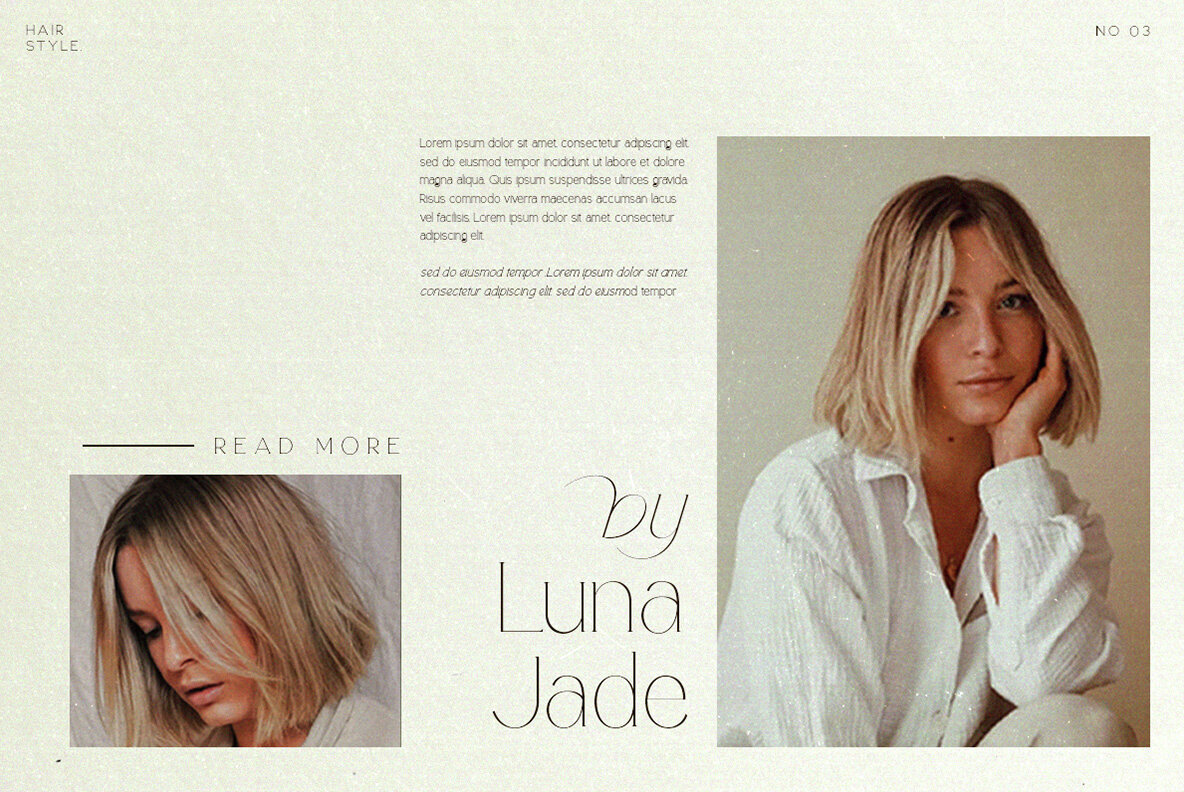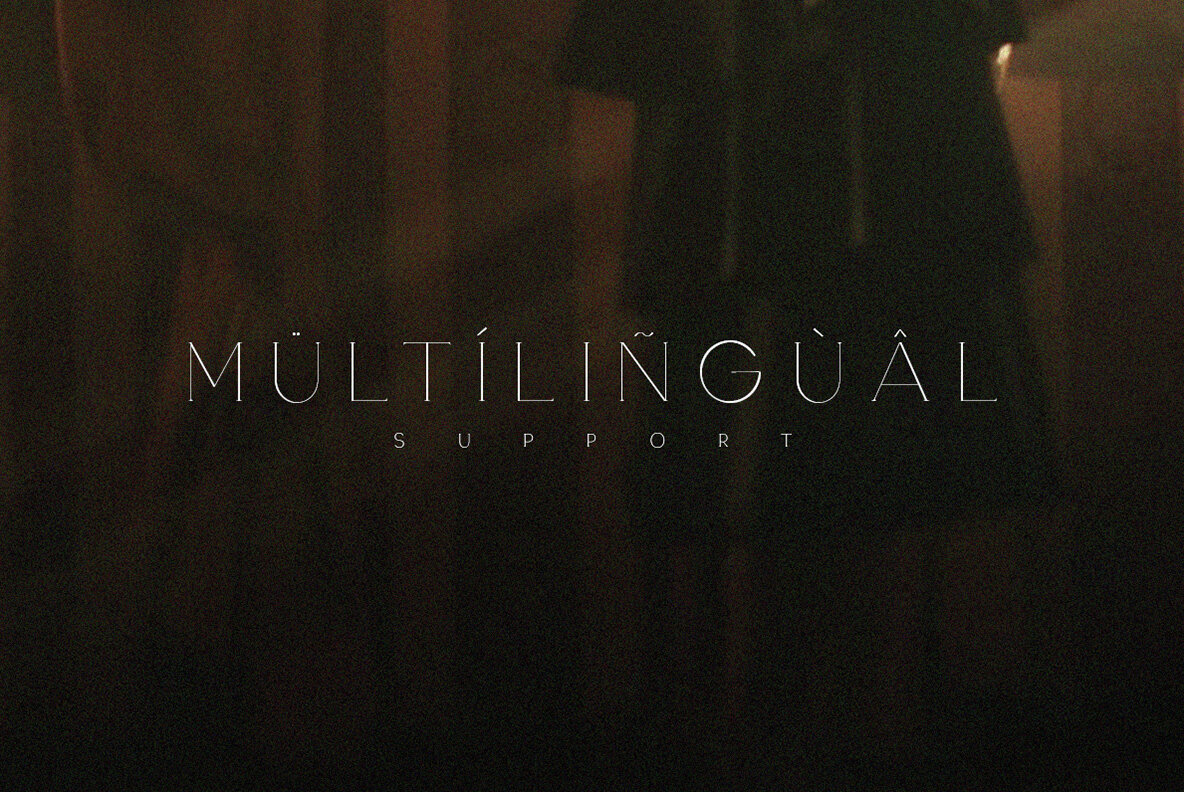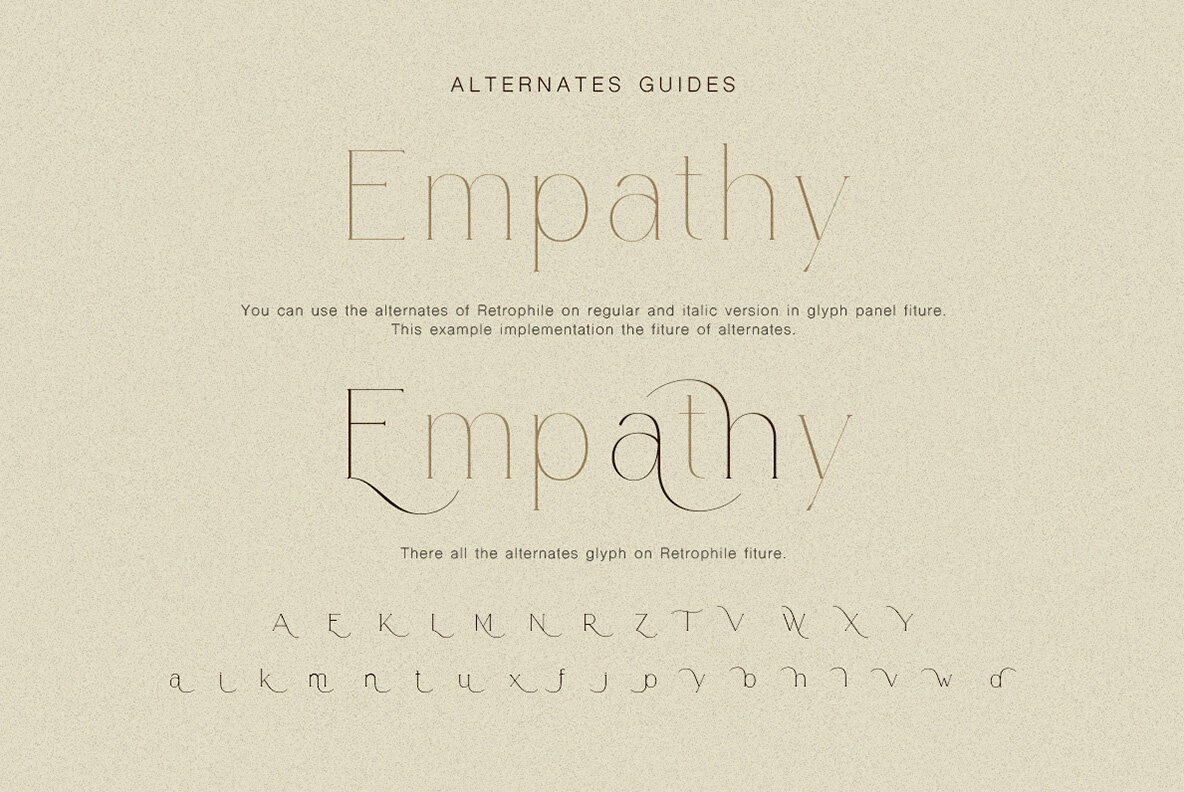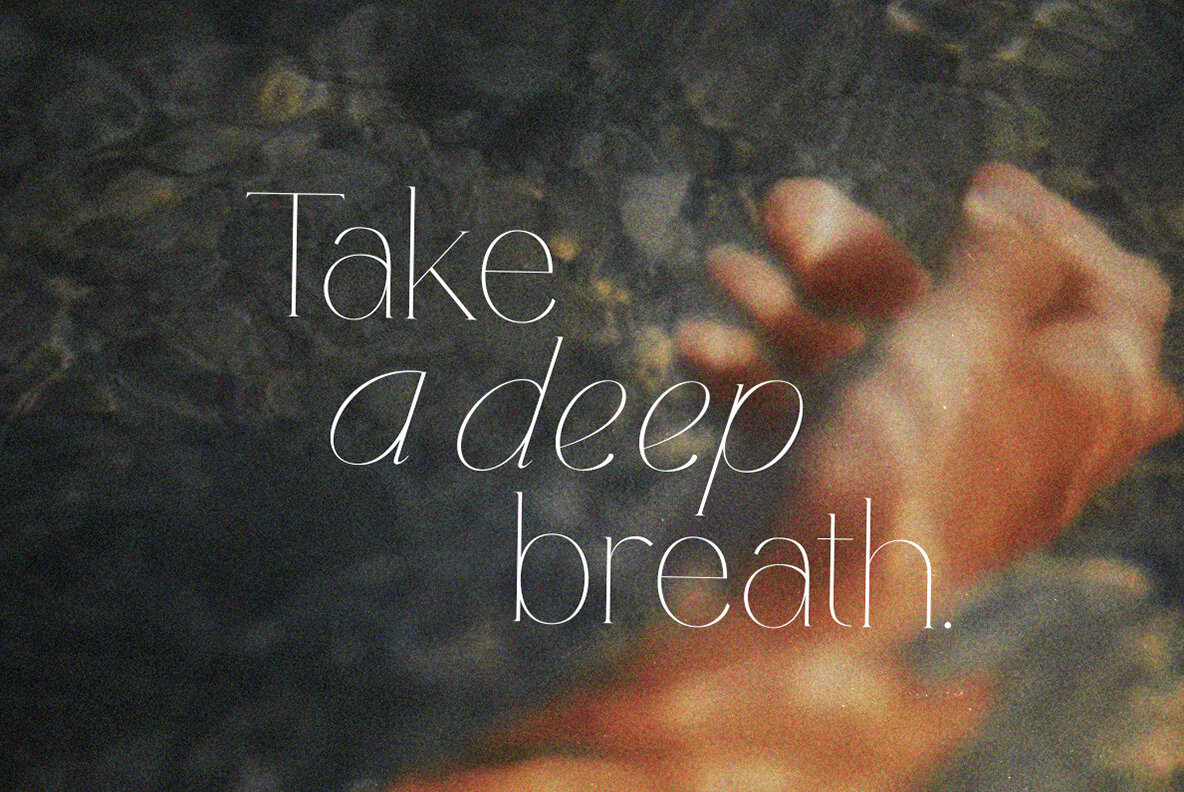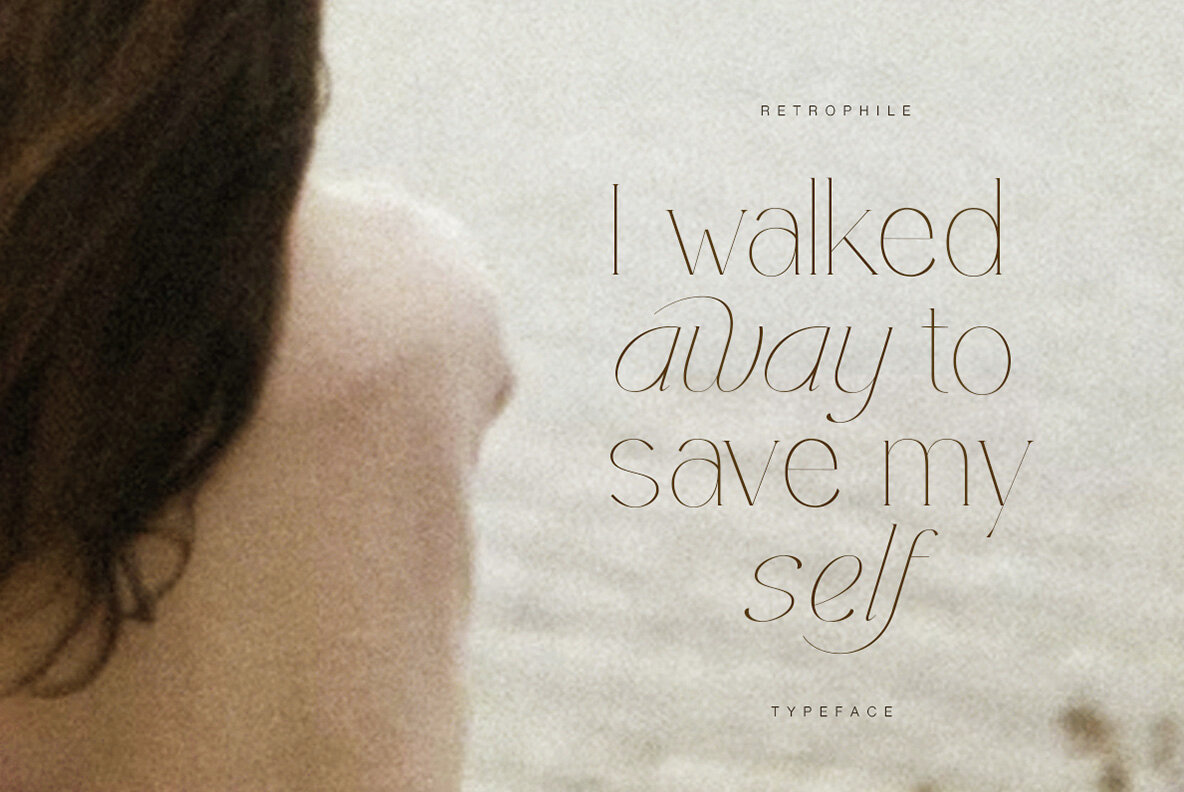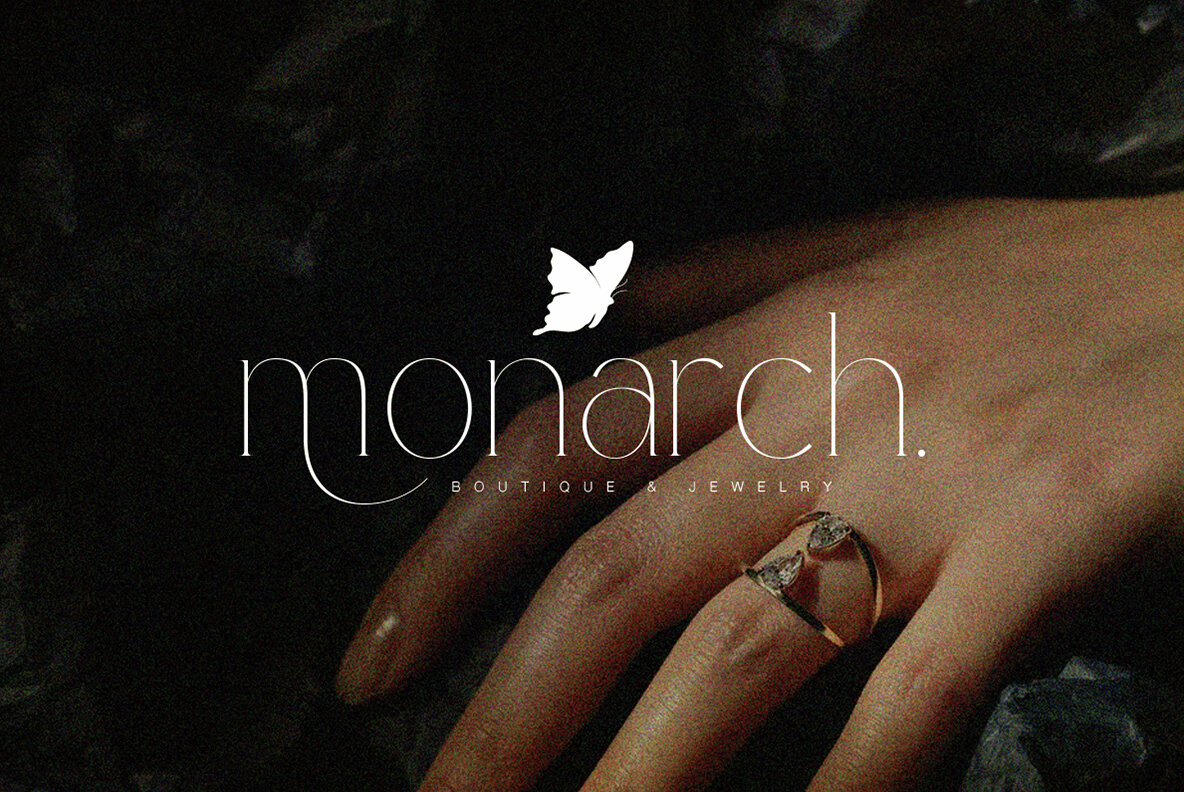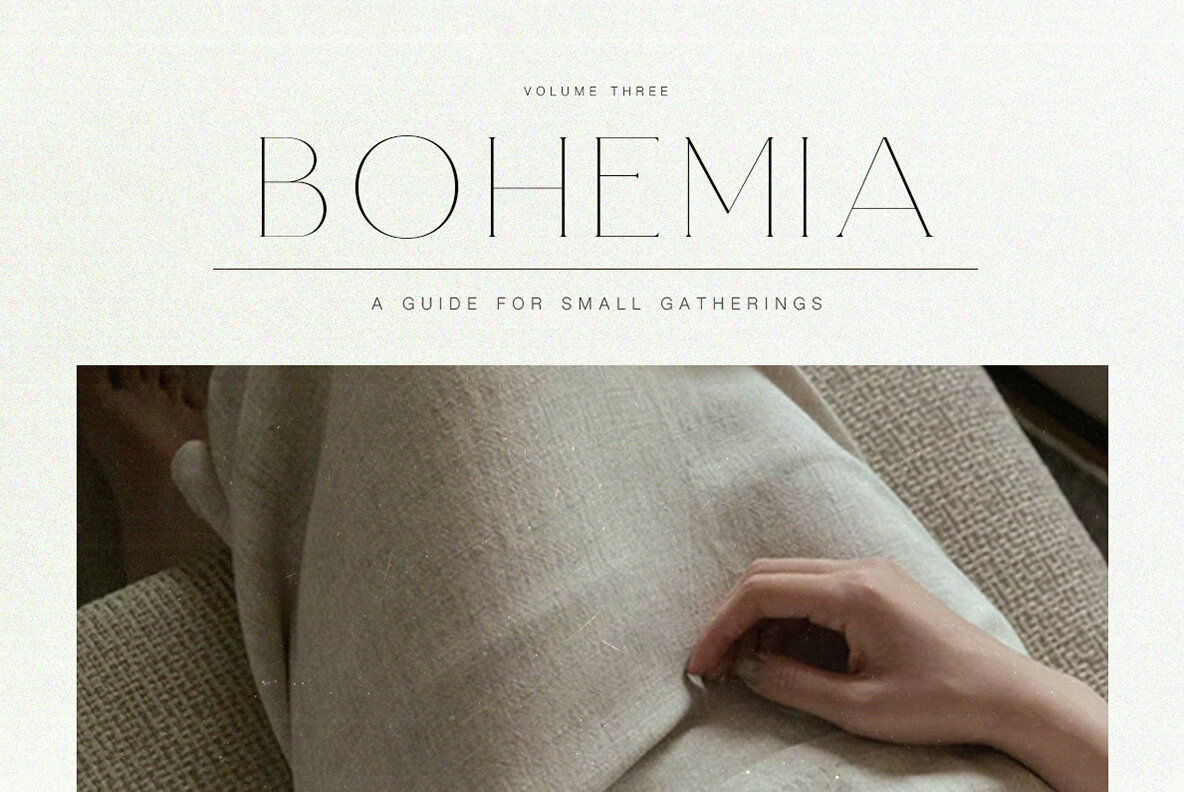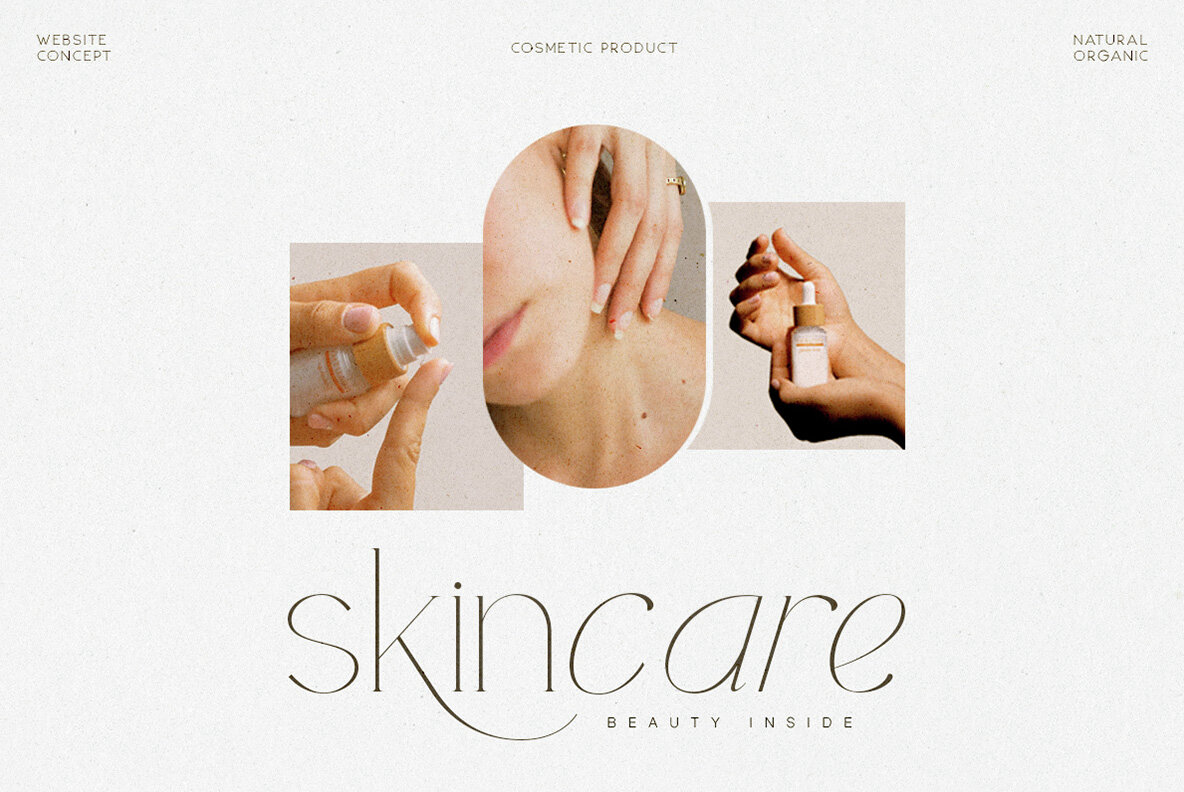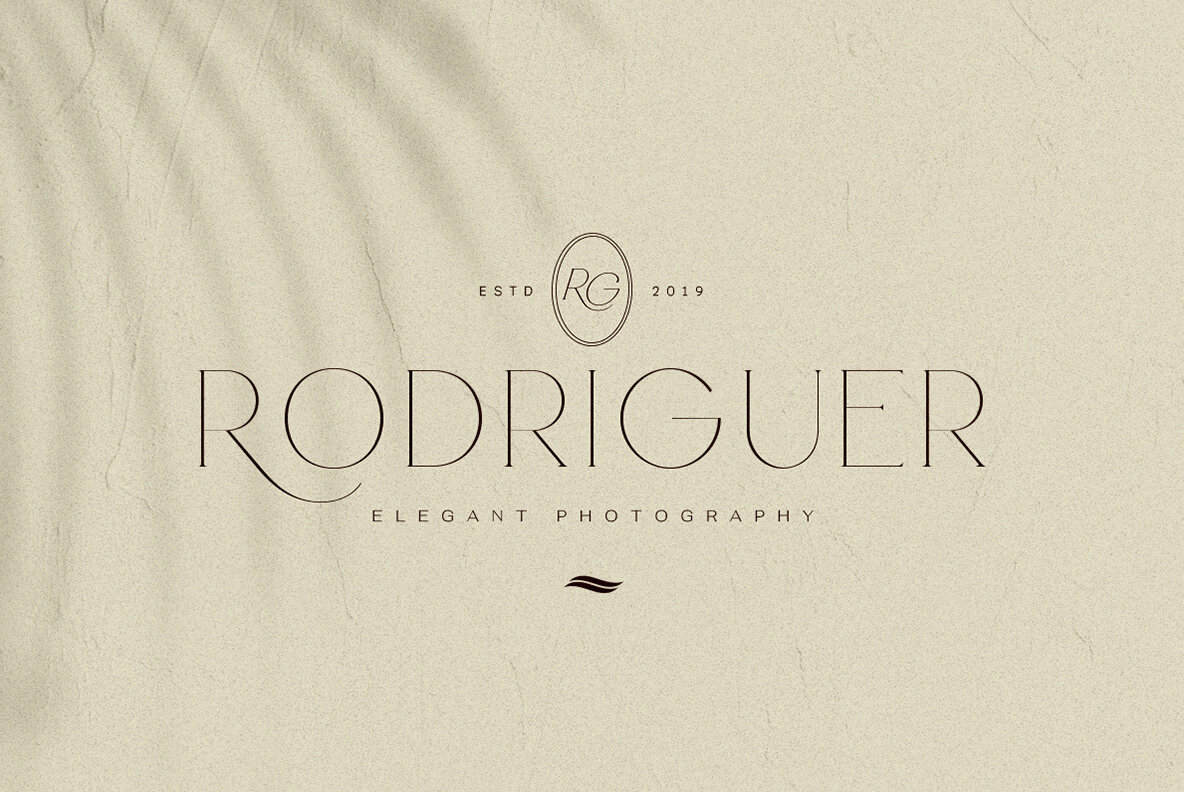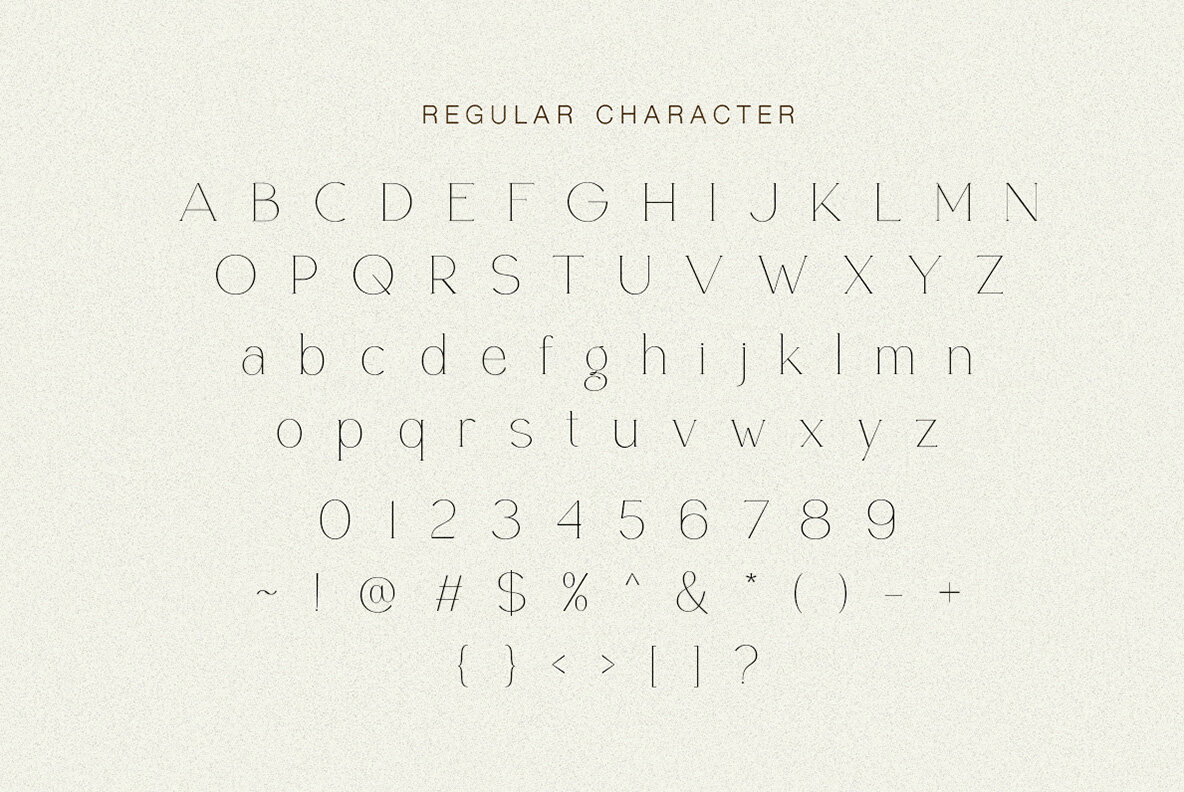
Retrophile Font
Retrophile is elegant and light serif contains two style, regular and italic. With minimalist and clean looks, you can use this fonts for branding and quotes. This font also contains beautiful alternate that you can use to get outstanding designs. This font also support multilingual.